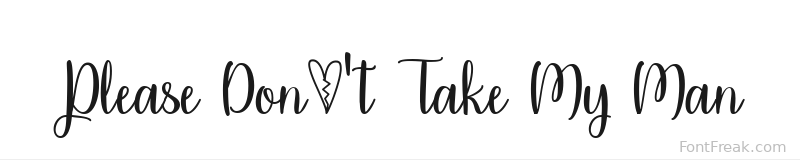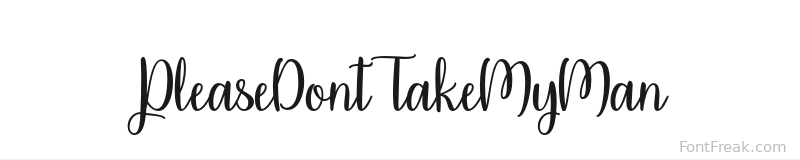
PleaseDontTakeMyMan
Please Don't Take My Man
PleaseDontTakeMyMan by Misti Hammers is a captivating handwritten script font that exudes a playful yet sophisticated charm. This font features fluid strokes with varying weights, giving it a dynamic and organic feel. The graceful curves and whimsical flourishes create a sense of movement, making it perfect for designs that aim to evoke emotion. Its moderate spacing ensures readability while maintaining a stylish appearance, making it an ideal choice for creative projects.
One of the standout use cases for the PleaseDontTakeMyMan font is in wedding invitations, where its elegant yet informal style can add a personal touch to the special occasion. Additionally, it works beautifully for greeting cards, particularly those intended for romantic messages or heartfelt sentiments. Small business owners can leverage this font for branding elements, such as logos or packaging designs, that seek to convey a warm and inviting atmosphere. Furthermore, it can enhance the visual appeal of social media graphics, helping content creators engage their audience with a unique flair.
The target audience for this font includes graphic designers, small business owners, and content creators looking for a distinctive typeface that stands out in a crowded market. The playful nature of PleaseDontTakeMyMan can help brands and individuals convey their personality and connect with their audience on a deeper level.
What sets the PleaseDontTakeMyMan font apart is its ability to combine elegance with a touch of whimsy, making it versatile for various applications. The unique character of this font ensures it leaves a lasting impression, making it a must-have in any designer's toolkit. Don't miss out on the chance to elevate your projects with the PleaseDontTakeMyMan font free download, perfect for adding that special touch to your creative endeavors.